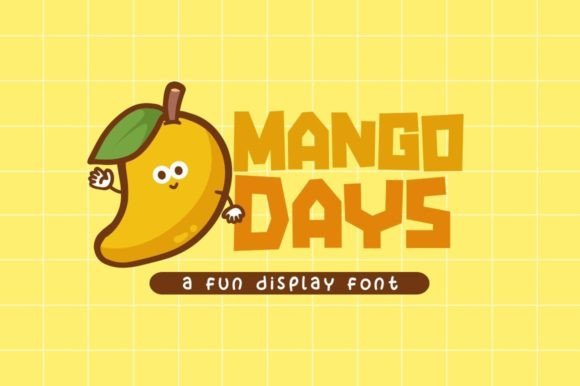
In a world bursting with digital creations, do you yearn for a font that transports you to a realm of whimsy and fun? Look no further than Mango Days Font, the enchanting display font that ignites childlike wonder with every stroke.
Meet Mango Days, the jubilant font that dances across your screen, evoking the magic of childhood. Its playful curves and cheerful strokes bring life to any creation, making it the ultimate choice for designers seeking a touch of lightheartedness.
Visualize the delight on your audience's faces as they encounter your designs adorned with Mango Days. Whether it's a captivating children's book, an enthralling cartoon production, or simply a personal project infused with playful charm, Mango Days transforms ordinary words into extraordinary expressions of joy.
Let your imagination soar as you explore the endless possibilities that await with Mango Days. Craft eye-catching logos that radiate warmth and friendliness, design invitations that spark excitement for upcoming events, or unleash your creativity in crafting social media posts that burst with personality. The possibilities are limitless!
Journey into the world of Mango Days and discover a font that captures the essence of youth, happiness, and unbridled creativity. Its versatility knows no bounds, accommodating a symphony of design styles. From playful animations to captivating websites, Mango Days effortlessly elevates your creations to new heights of imagination.
Why settle for ordinary when you can embrace the extraordinary? Embrace Mango Days today and ignite the spark of joy in your designs. Let its vibrant energy captivate your audience, leaving them spellbound by the sheer brilliance of your creations.